21 Best Fonts for Packaging That Attract Customers
The best fonts for packaging can do more than make your product look pretty. Research in the Journal of Business Research shows that packaging with a brand-appropriate font is chosen significantly more often than one with a mismatched font.
To save your time, you can simply scroll here because we’ve listed 21 top choices of packaging fonts to inspire your next design. Learn more and pick the one that best fits your brand!
Key Takeaways:
- Choosing the best fonts for packaging enhances brand identity and attracts customers.
- Each font has unique characteristics and recommended uses for different products and industries.
- Even standard fonts can be used effectively for packaging when matched with the right design and style.
21 Best Fonts for Packaging
To help you easily find the best one, this article also includes the font’s key characteristics and recommended uses. Let’s take a look!
1. Daymond
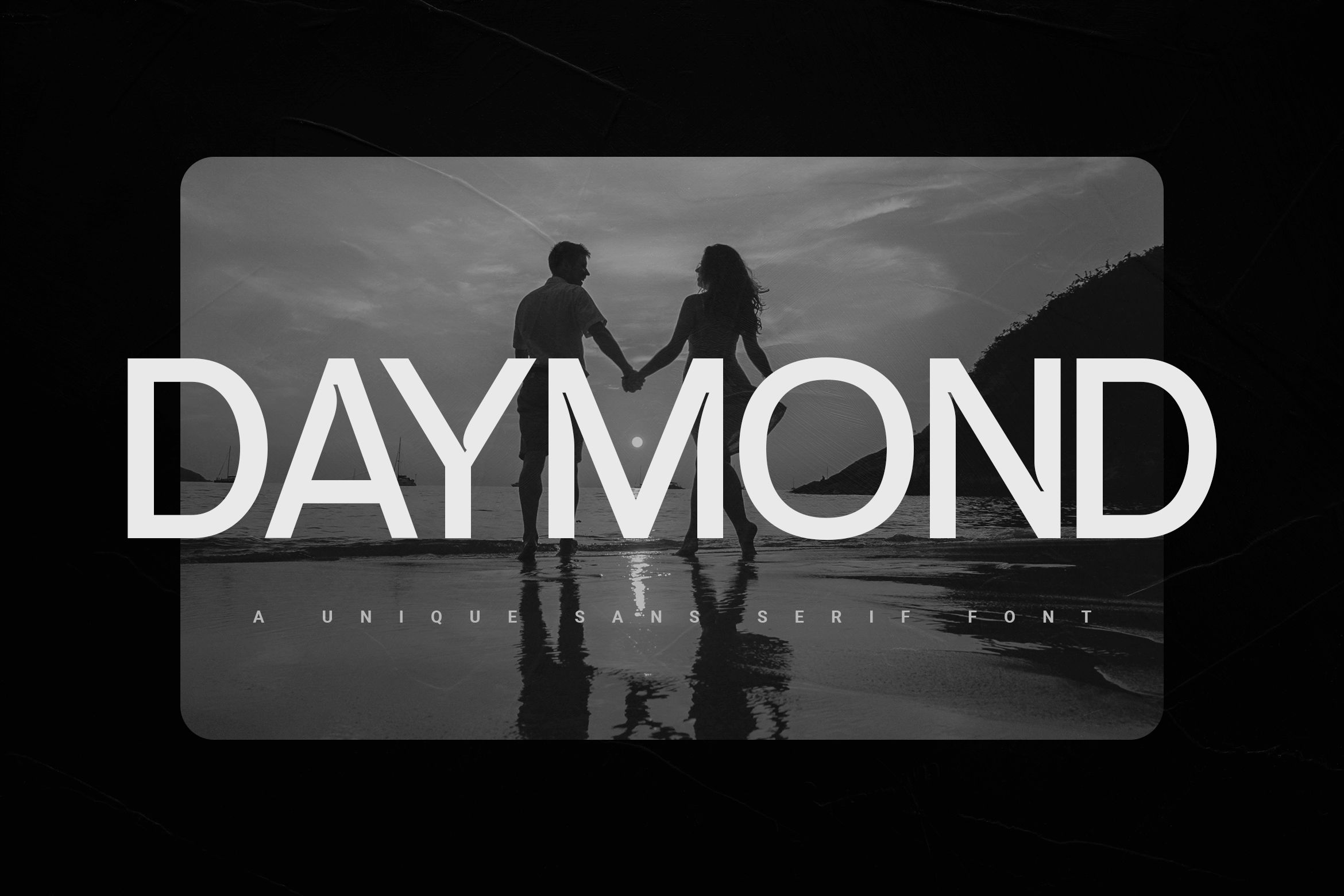
Daymond is a striking contemporary sans-serif typeface that expertly combines distinctive character with simple aesthetics. With a clean yet distinctive impression, it’s perfect for various packaging, especially for simple outfit labels and product tote bags.
2. Crizco
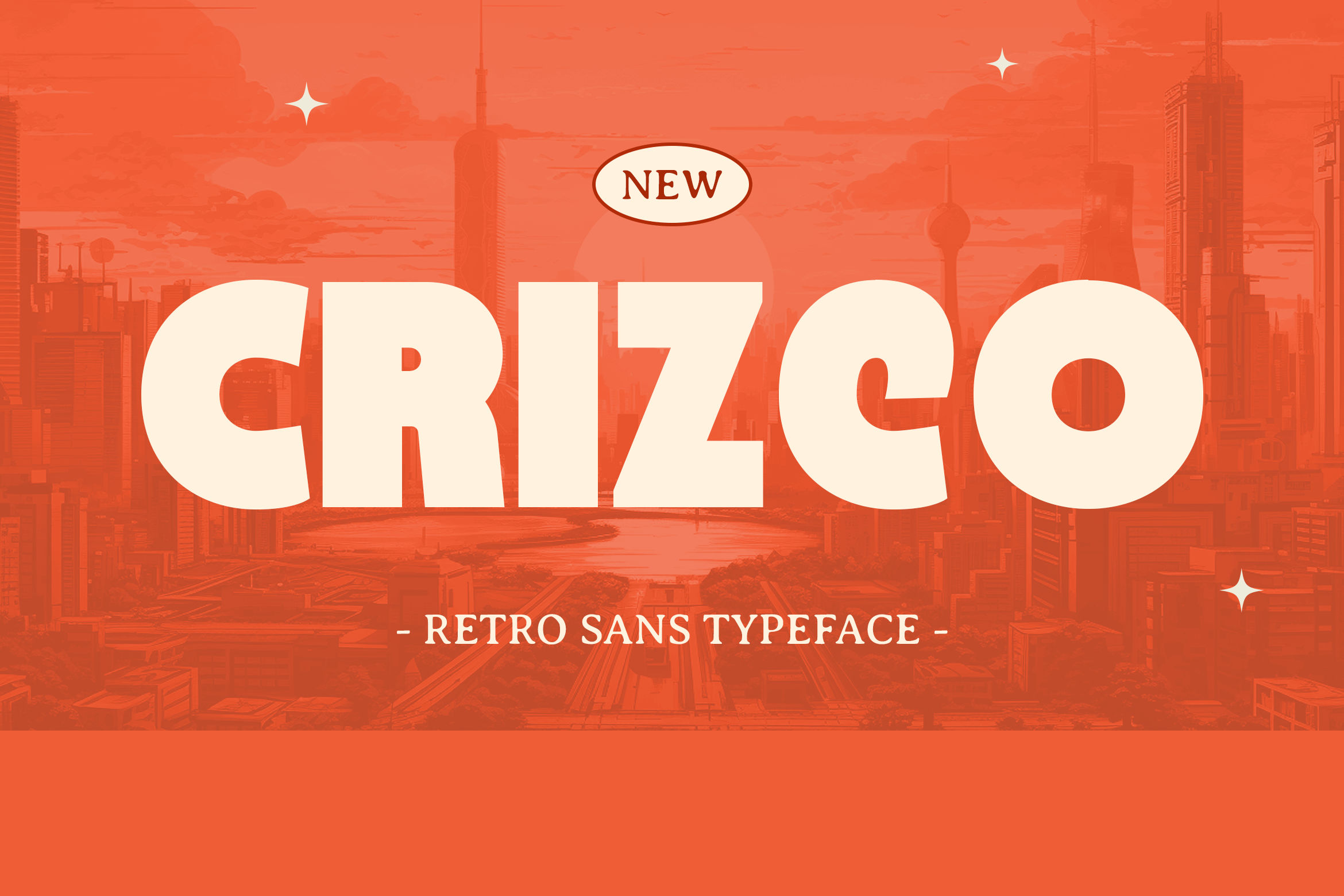
Crizco brings a fresh twist to vintage style. It has bold shapes and smooth, rounded edges, making it a joy to read, whether on toy boxes, children’s books that call for a fun, nostalgic vibe.
3. Craftico
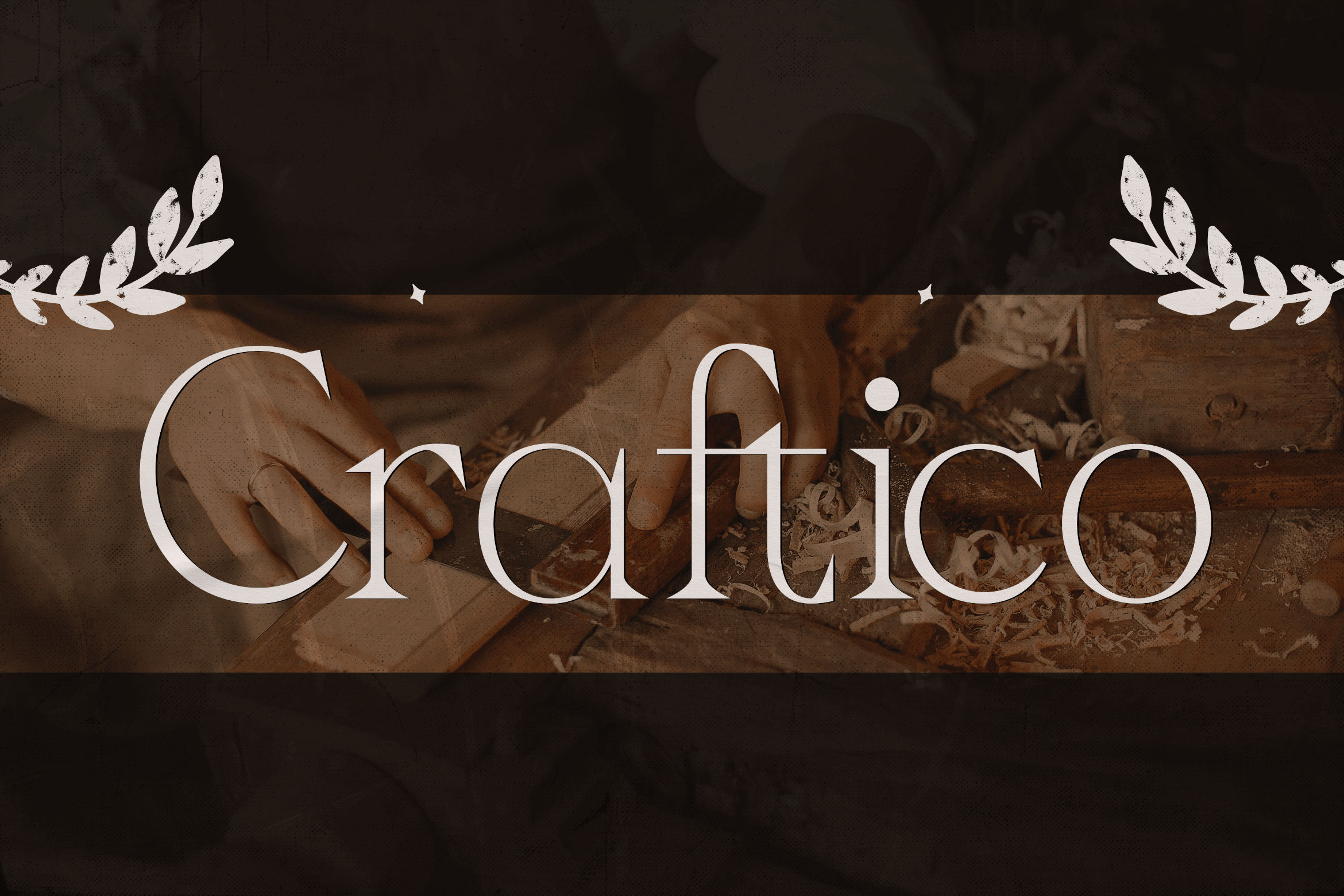
It featured graceful curves, delicate serifs, and beautiful contrast in every stroke. Whether for premium fashion labels, beauty product packaging, Craftico speaks the sophistication effortlessly.
4. Briken Bold
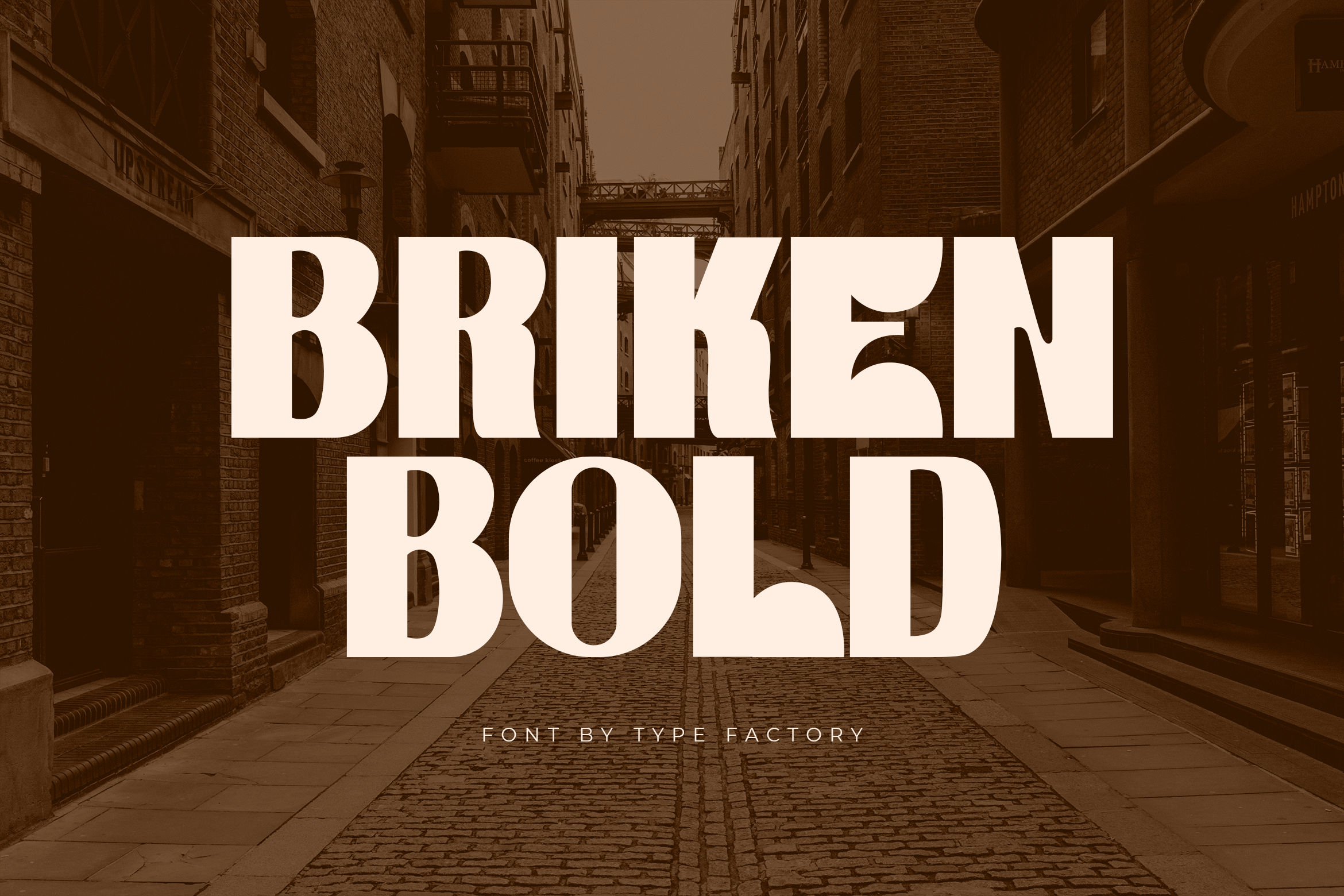
Featuring a fearless attitude, striking sans-serif style, and distinctive shapes, this bold font is crafted to leave a lasting impression for clothing brands or trendy coffee drinks to deliver a youthful vibe.
5. Arestmation
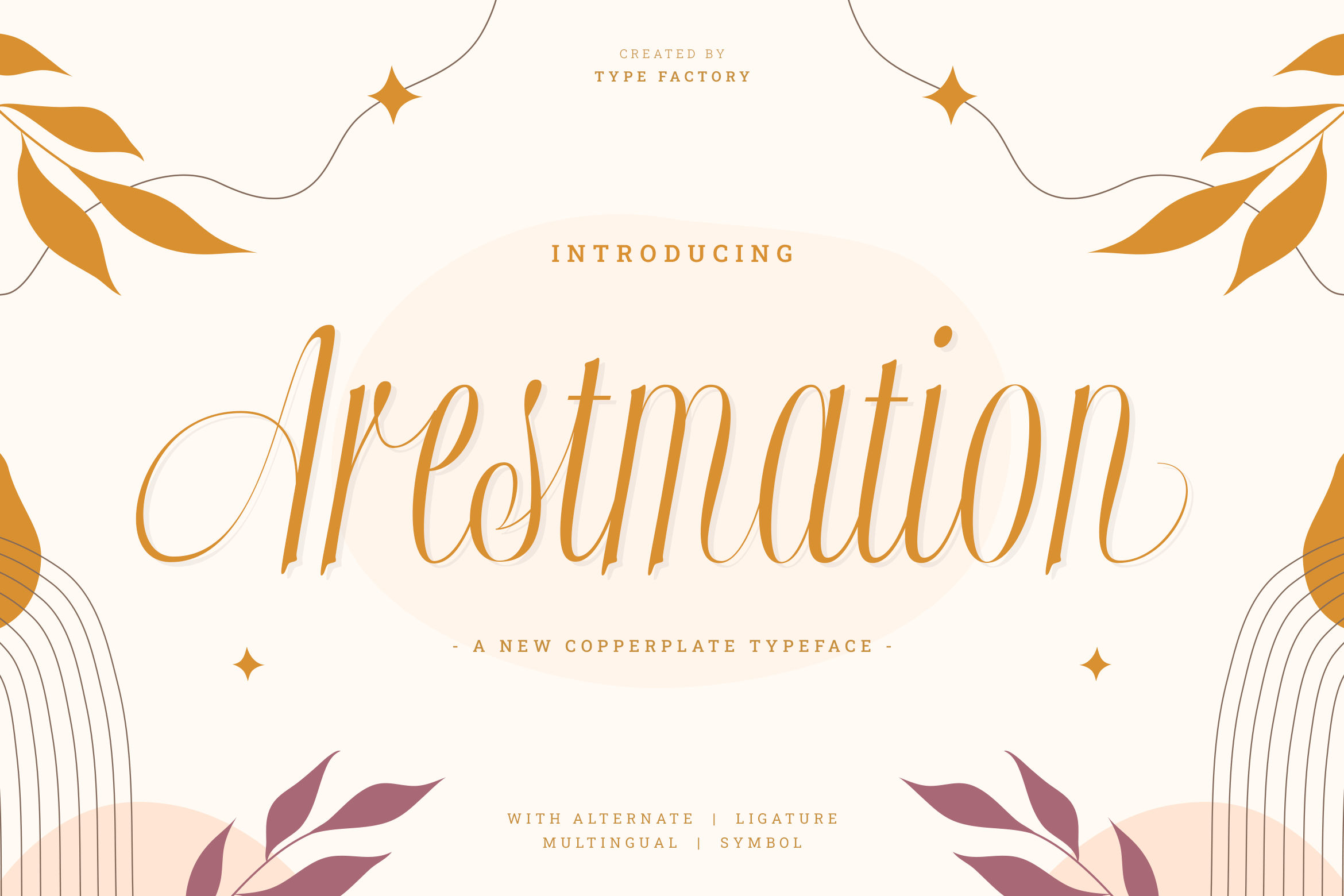
The flowing curves and delicate contrasts speak of elegance and care, making it the perfect choice among the best fonts for packaging for perfume bottles and beauty care lines with a freshness and natural touch.
6. Anefity
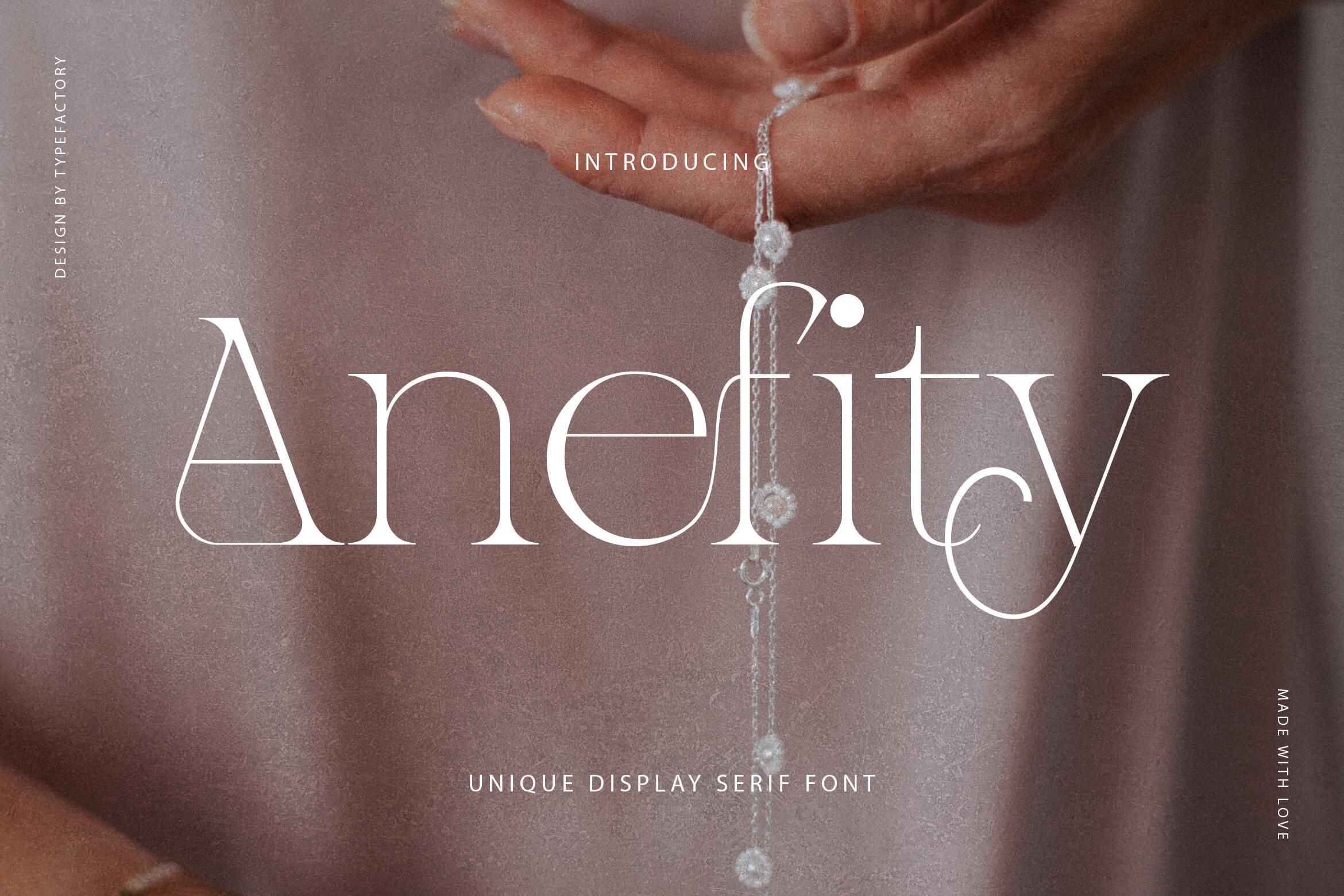
It marries classic elegance with a modern twist. The distinctive curves and refined serifs bring a luxury charm, while still feeling fresh and approachable for morning coffee cups and bakery boxes that deserve a touch welcoming vibe.
7. Aesthem
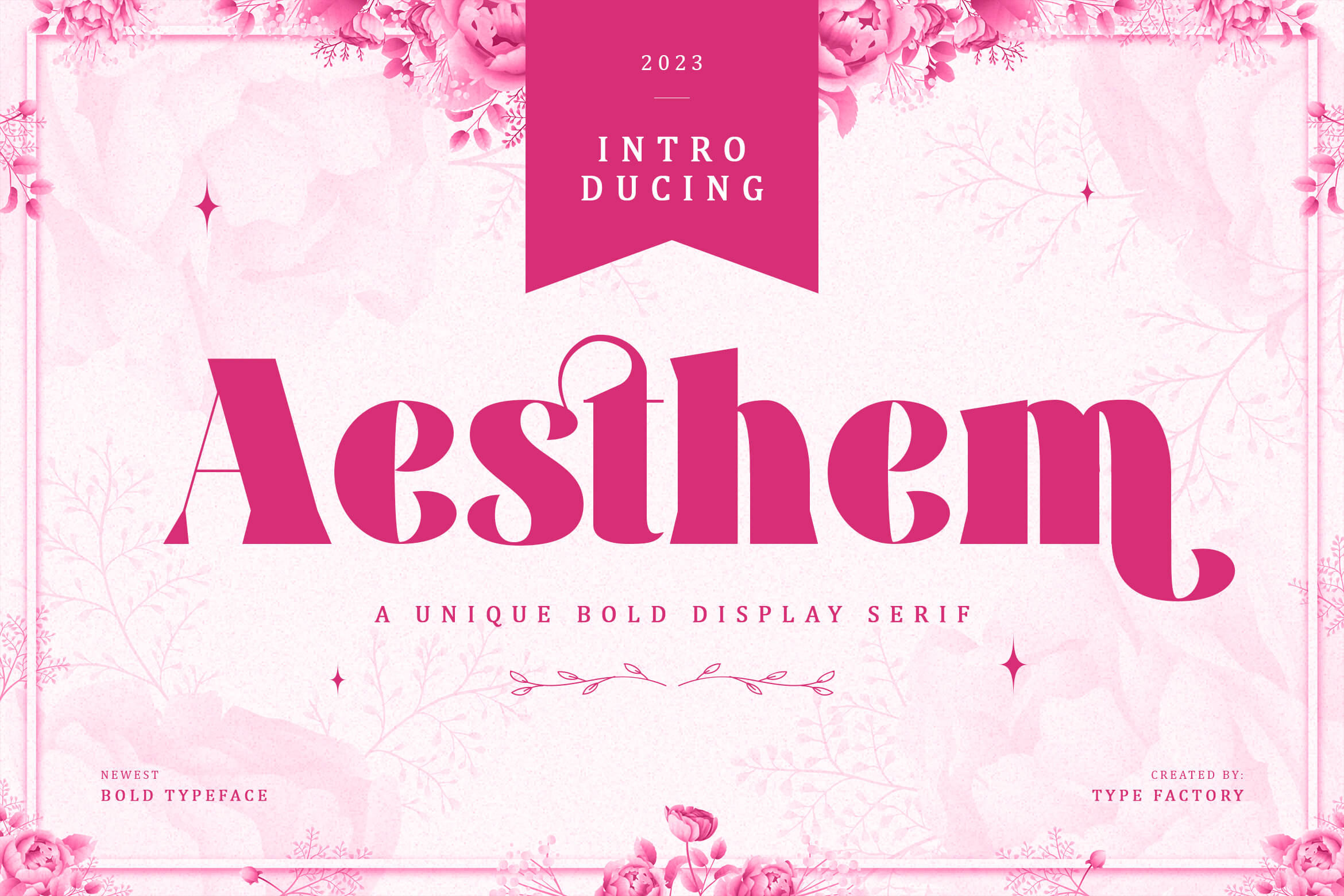
Aesthem is the best font for food packaging that blends boldness with elegance, creating a serif that feels both powerful and refined. Its striking contrast, sharp yet graceful serifs, and flowing curves make it great on a takeaway bag or gourmet product packaging.
8. Verstep
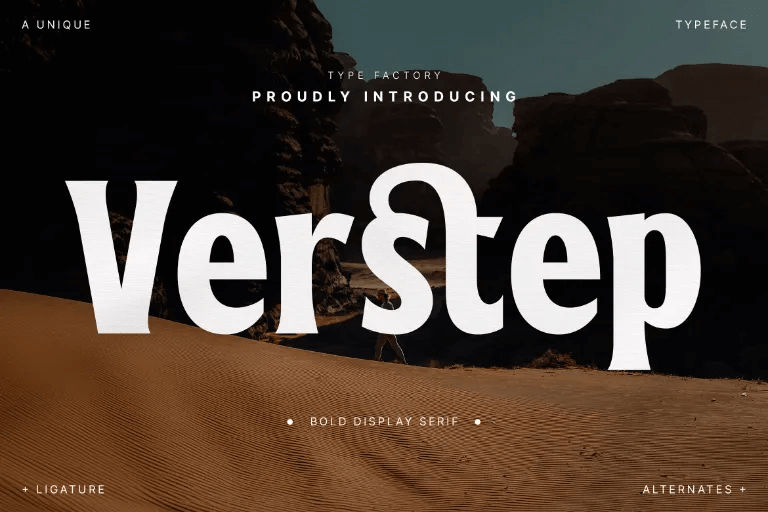
Verstep steps into the spotlight! Featured with dramatic proportions and sturdy serifs give every word a sense of power. For any luxury packages, especially high-fashion labels, Verstep would effortlessly leave a timeless impression.
9. Tabasco
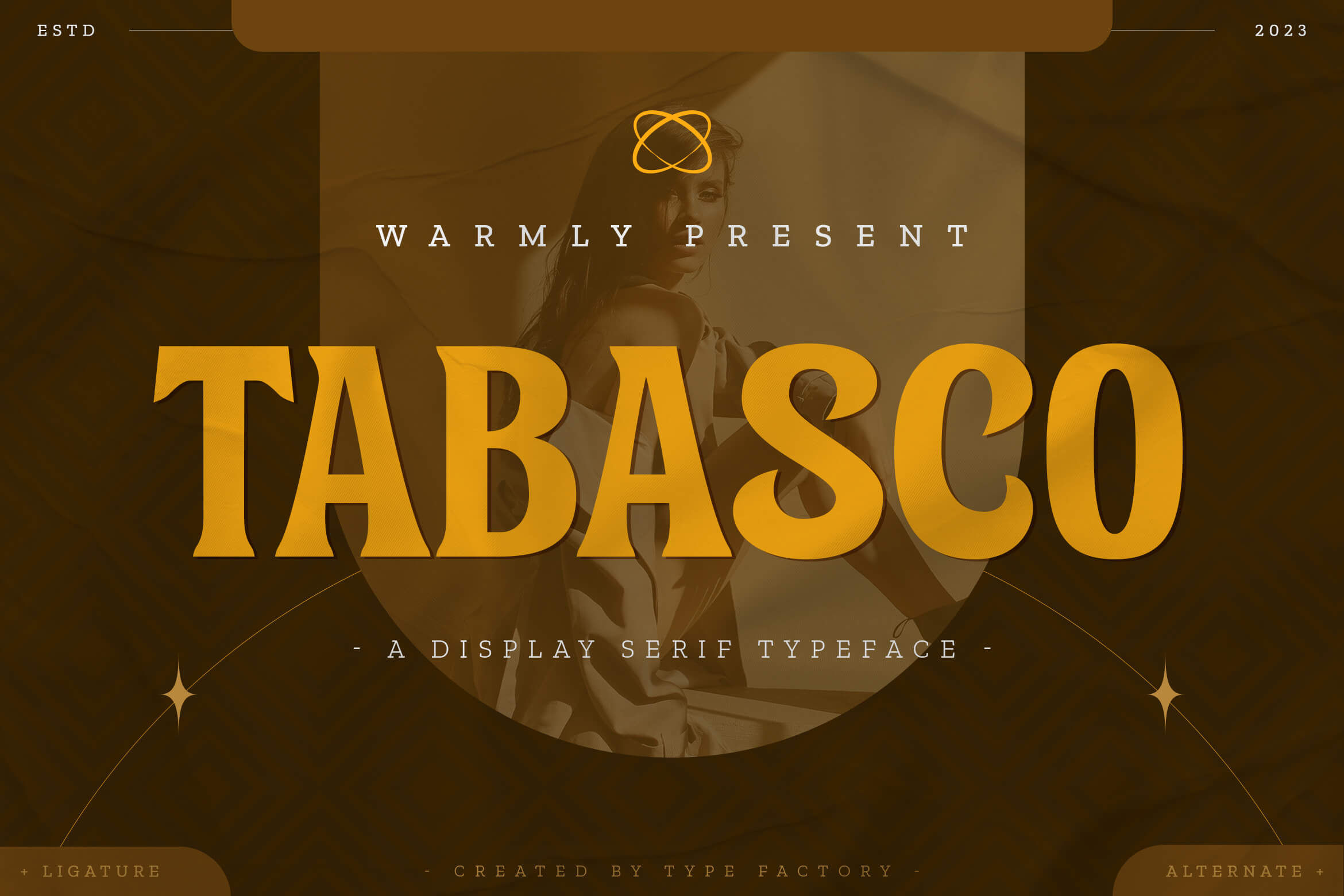
Tabasco brings bold elegance with a dash of personality. It brings a refined yet playful look with sharp serifs and distinctive curves. Perfect for clothing labels that add sophistication while keeping things fresh and memorable.
10. Sunbath
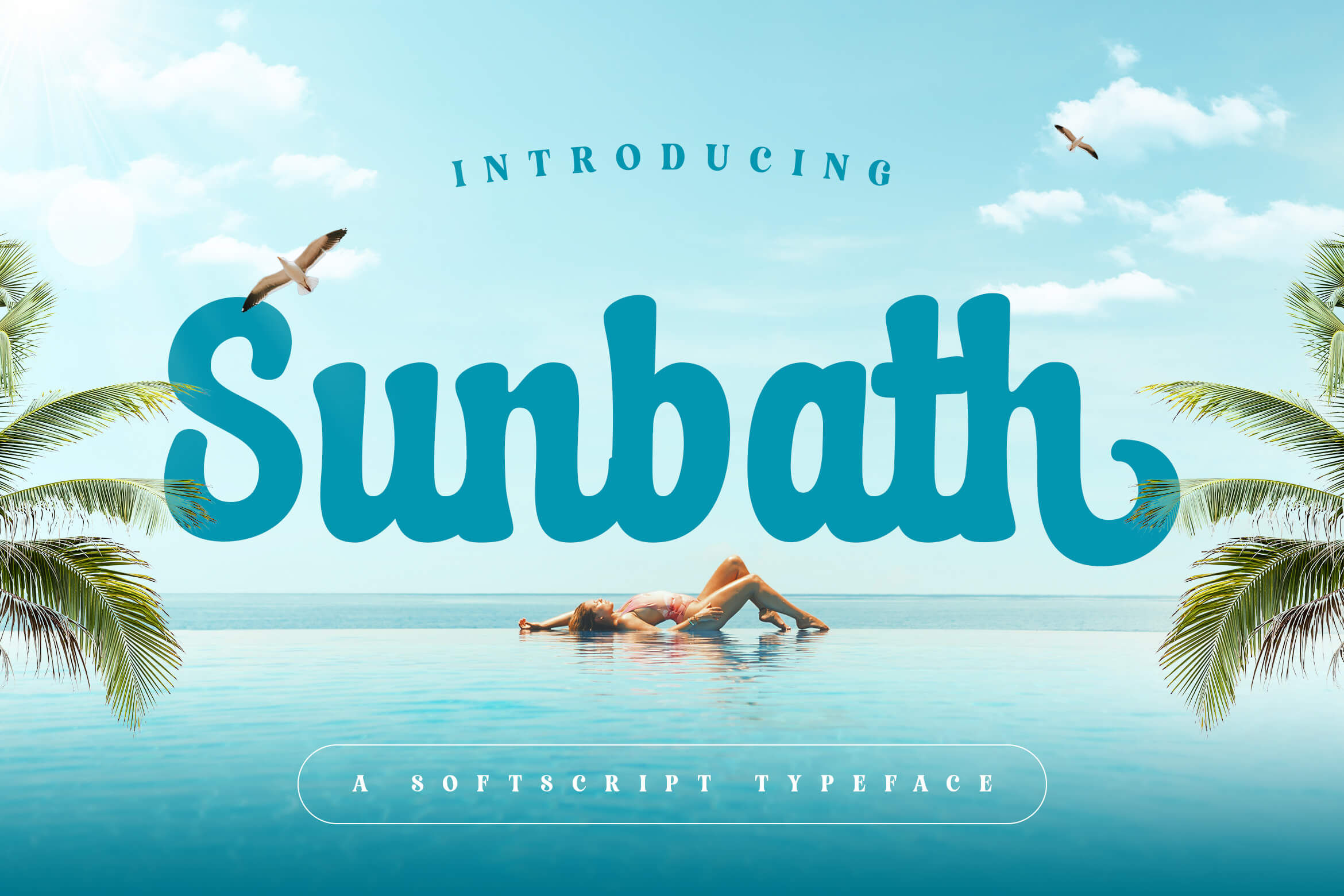
Sunbath is worth being the best font for packaging that shows warmth and charm. It has flowing, handwritten strokes and gentle curves that are suitable for catering services and body care branding that strikes the balance between playful and sophisticated.
11. Seolatra
Seolatra flows like a gentle brushstroke, wrapping your designs in pure elegance. The graceful curves and intricate details whisper sophistication, making it a beautiful choice for body spa and salon products that are timeless and irresistibly captivating.
12. Romear
Romear bursts with bold retro energy, pairing thick letterforms with striking curves for a look that’s both nostalgic and fresh. Perfect for sweet tooth products with vibrant packaging that is impossible to ignore.
13. Rombucha
Rombucha featured elegance and modern charm in a stylish serif design. With refined letterforms and graceful serifs, it adds a luxurious touch to skincare packaging and secondhand clothing labels, creating both a readable and chic vibe.
14. Rolesster
Let’s speak the language of elegance only with Rolesster! It is a natural pick for cosmetic packaging thanks to its refined curves and graceful serifs that leave a lasting impression that feels both timeless and modern.
15. Protego
Protego features bold lines and geometric shapes for a modern, attention-grabbing look. Perfect for beauty product packaging and clothing store labels, it answers “Can I use standard fonts for packaging?” by proving you can while keeping a fresh and memorable style.